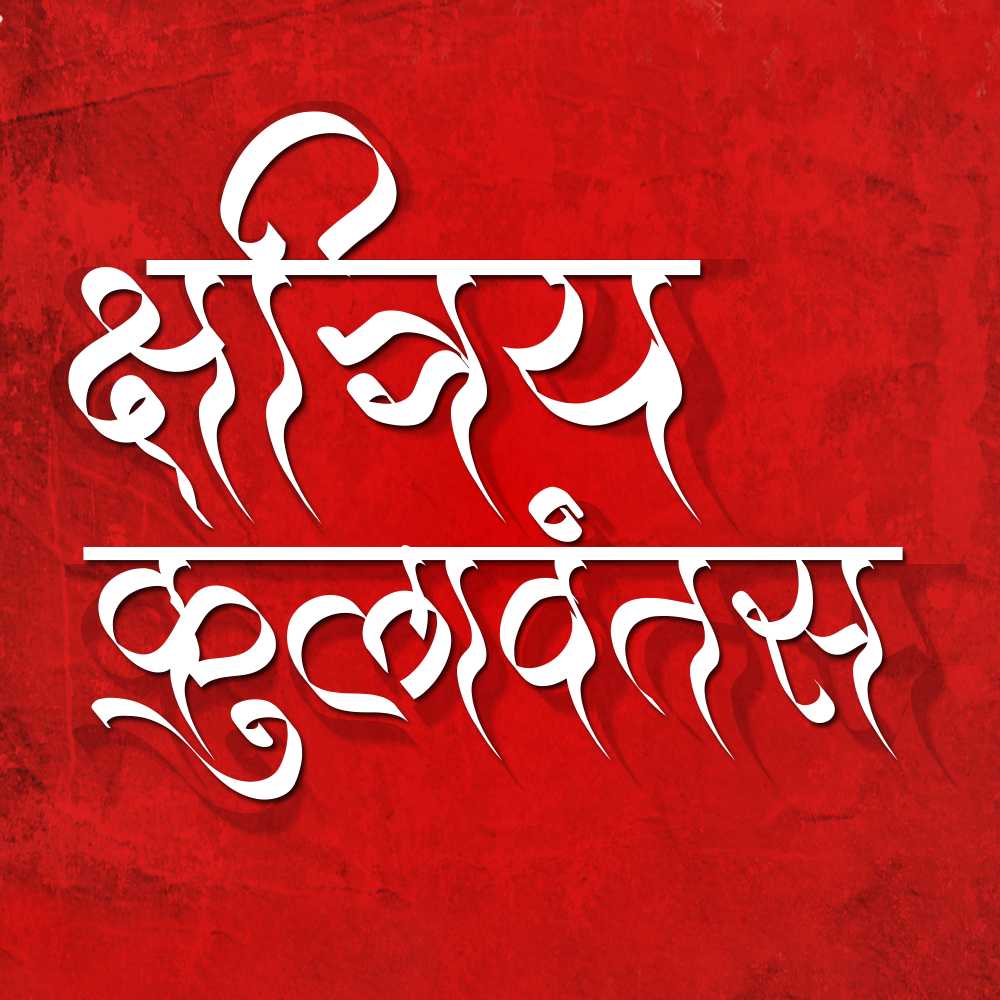
AMS Hastkala 2
Indulge in the allure of handmade artistry with AMS Hastkala 2, a font that captures the spirit of creativity and craftsmanship. Whether you're seeking free AMS fonts, exploring AMS Hastkala 2 font download options, or looking for AMS Hindi font download choices, AMS Hastkala 2 is your gateway to artistic expression.
About AMS Hastkala 2 Font
Indulge in the allure of handmade artistry with AMS Hastkala 2, a font that captures the spirit of creativity and craftsmanship. Whether you're seeking free AMS fonts, exploring AMS Hastkala 2 font download options, or looking for AMS Hindi font download choices, AMS Hastkala 2 is your gateway to artistic expression. This decorative font combines elegance with functionality, making it perfect for various design applications.
AMS Hastkala 2 is a professionally crafted decorative typeface that brings clarity and style to your projects. Designed with attention to detail, it supports hindi and marathi characters flawlessly.
Whether you're working on invitations, headers-titles, greeting-cards, or other creative projects, AMS Hastkala 2 delivers consistent performance across both digital and print media. This carefully designed typeface ensures readability and visual appeal in all your design work.
About AMS Hastkala 2 Typography Style
AMS Hastkala 2 is a professionally crafted decorative font that exemplifies modern Hindi typography design. This free font is perfect for designers seeking versatile design applications.
Available in 1 weight and supporting hindi, marathi scripts, AMS Hastkala 2 offers exceptional versatility for both digital and print media. Whether you're working on invitations, headers-titles, greeting-cards, this carefully designed typeface ensures consistent quality and professional results across all your typography projects.